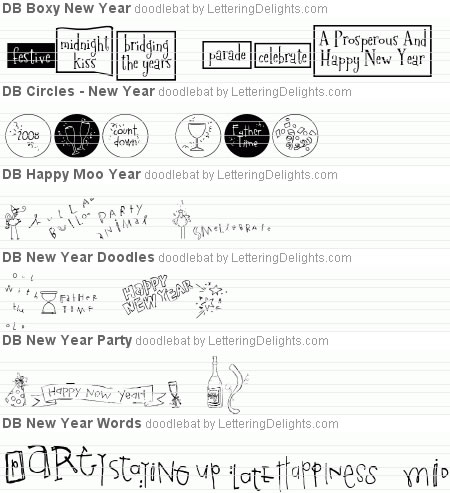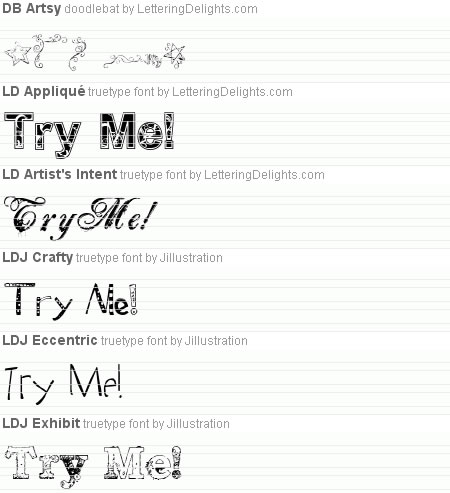
ARTSY FONT BUNDLE |
A '2007 Year in Review' letter for Lettering Delights
would have to start with DoodleBats, which made their debut
in August and have been going strong ever since. Perfect
for embellishing absolutely everything, each DoodleBat includes 36 unique symbols and couldn't be simpler to use
because they install and operate just like a traditional
font.
journey. From cheese to cowboys, each state is colorfully
represented in an alphabet and matching Journaling Delight
clip art, including corners, title boxes, tags, toppers,
photo boxes and adornments.
| The all new States
WI, WY Bundle is
DoodleBat New Year's Bundle |
Looking for more ways
to create fun and easy layouts, cards, invitations,
posters, tags and more? Make sure one of your 2008
resolutions includes using more DoodleBats! The DoodleBat
New Year's Bundle includes six new designs that are super
easy and super fun to use. Just like a font, DoodleBats can add finishing touches to all your projects in practically
| The DoodleBat
New Year's Bundle is
Six new collections of unique
artistic characters are waiting for you in the Artsy
Font Bundle. The decorative swirls and twirls of DB
Artsy set
the stage for you to stand out in a crowd with the big,
patterned styles of LD
Appliqué and LDJ
Exhibit.
Then, add romantic elegance with LD
Artist's Intent or
have fun and play with the freestyle LDJ
Crafty and LDJ
Eccentric. Express your style with all six!
| The Artsy Font Bundle is
Dress to the nines in top
hats and gowns for a celebration with style in Formal
Affair.
Or if casual is more your speed, grab your popcorn, hit
the lights and sit back to enjoy Movie
Night. The distinctive
style of each design is perfectly captured in an alphabet
and Journaling Delight clip art set, including clip art,
borders and words.
Perfect for invitations, use these designs to set the
stage for an awards show party that's just your style.
Make the evening last forever with autograph books for
your celebrity guests and scrapbook layouts you'll treasure.
Each alphabet and Journaling Delight Clip Art set is just